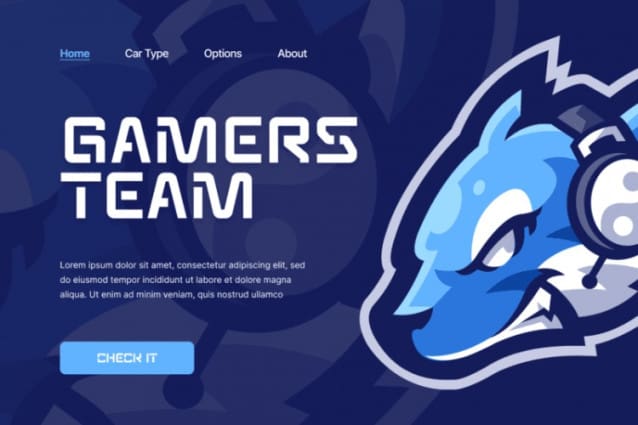
Sequences Futuristic Font
Sequences Futuristic Font – Gaming Font is the perfect addition to any gamer’s toolkit. This sleek and modern sans serif stencil font is perfect for creating eye-catching titles for your gaming videos, Instagram feed, and YouTube channel. With its clean lines and bold design, it is sure to catch the eye of your audience and keep them engaged. Whether you’re a professional gamer or just starting out, Sequences Futuristic will give your projects the extra edge they need to stand out from the crowd.
Looking for a modern and stylish font for your next project? Look no further than Sequences! This sans serif stencil font is perfect for a variety of uses, from gaming to movie titles to YouTube videos. Its clean lines and bold design make it easy to read and perfect for catching the eye of your audience. Whether you’re looking to create a sleek and modern look for your Instagram feed or add a unique touch to your next movie title sequence, it is the font for you.
Ready to take your gaming content to the next level? Look no further than Sequences – the ultimate gaming font! With its clean lines and bold design, this sans serif stencil font is perfect for creating titles and graphics for your gaming videos, Instagram feed, and YouTube channel. Whether you’re a professional gamer or just starting out, it will give your content a sleek and modern look that’s sure to impress your audience. Try it out today and take your gaming content to the next level!